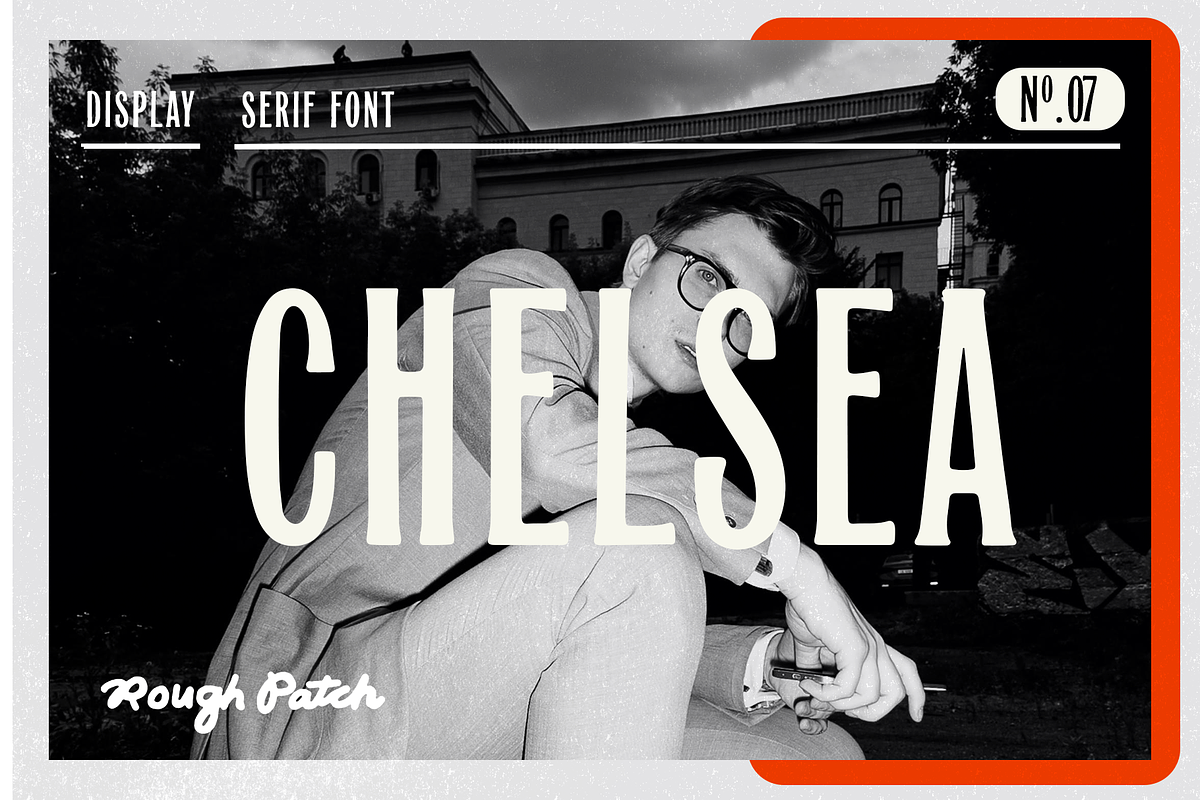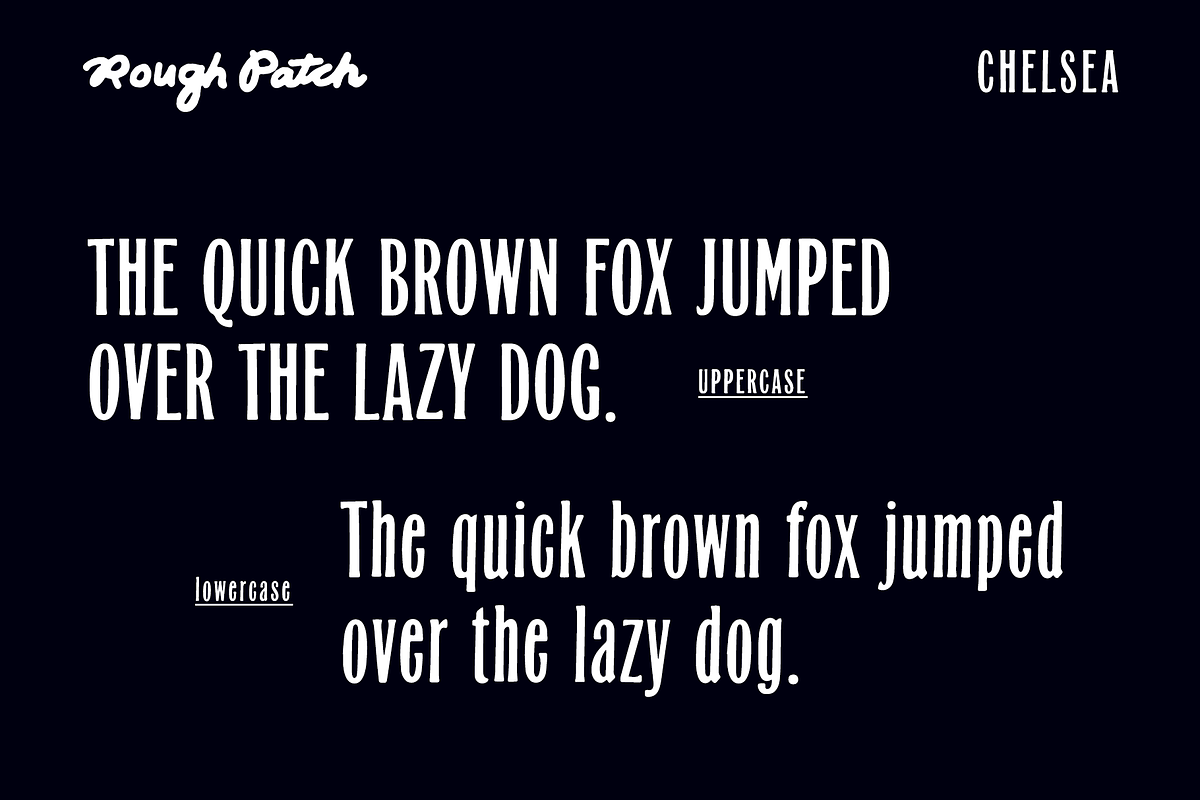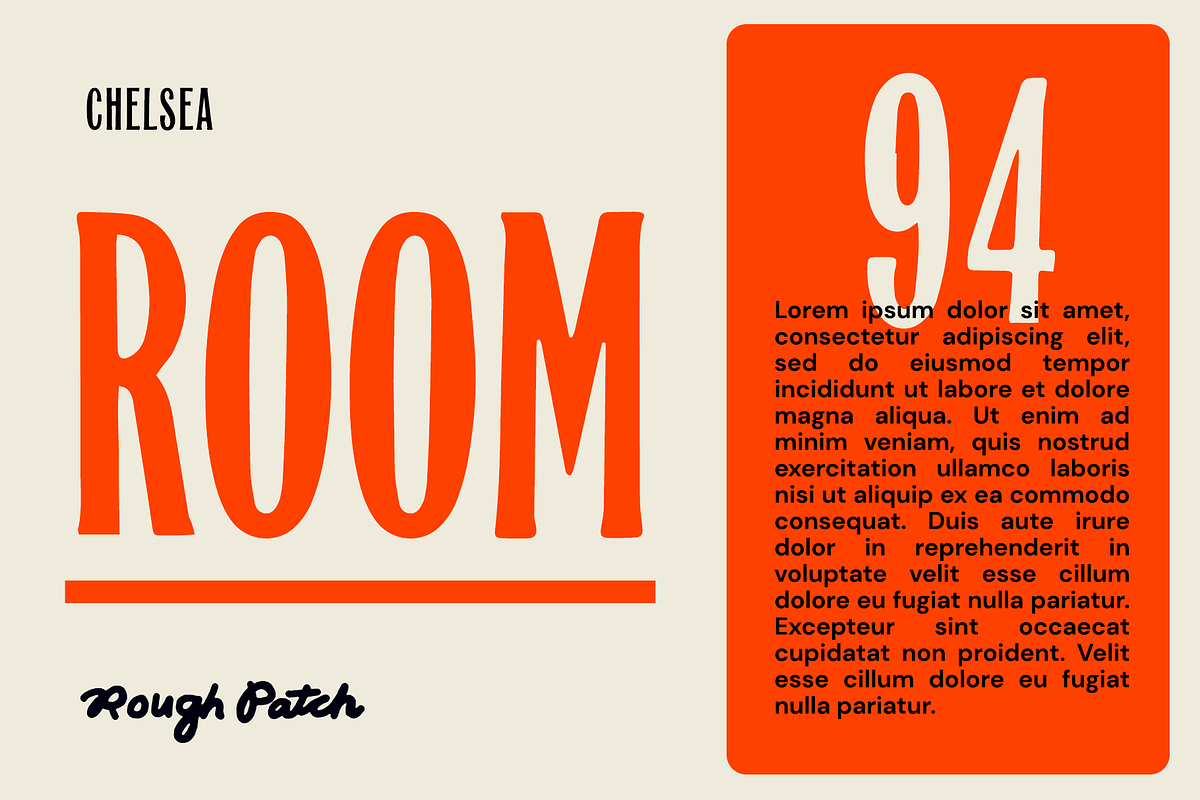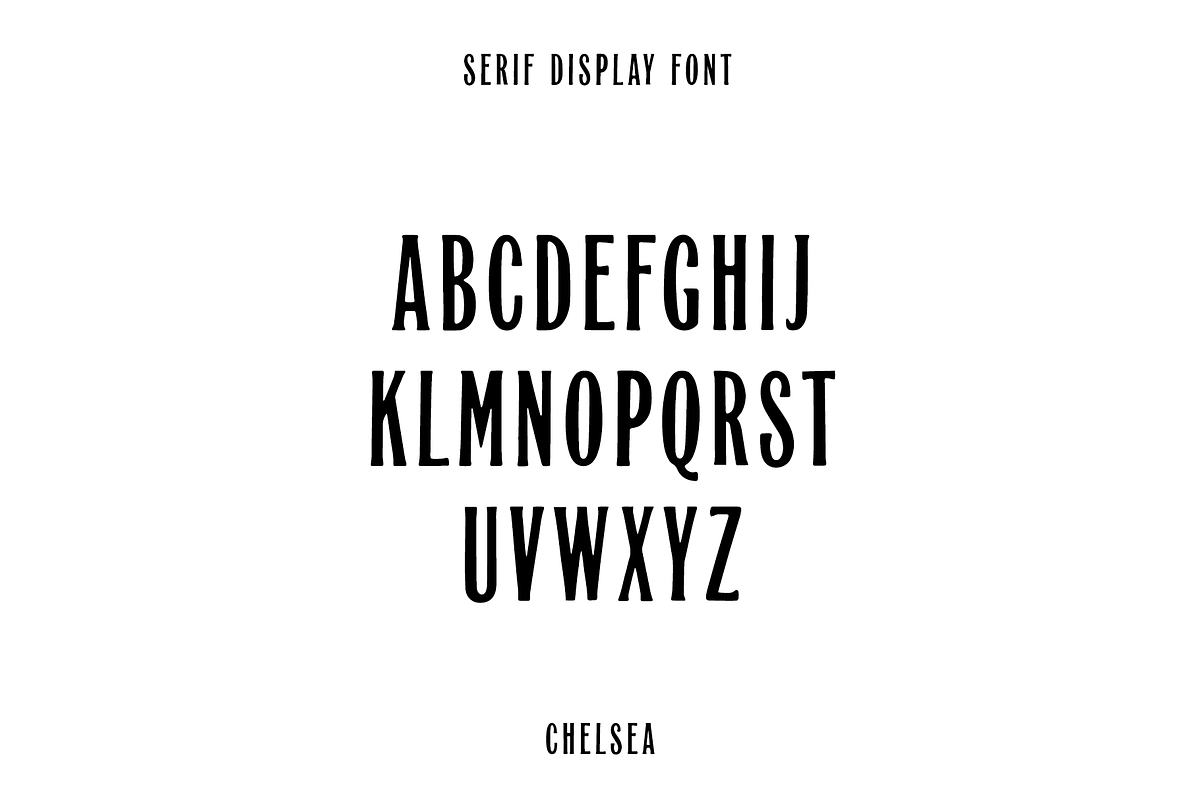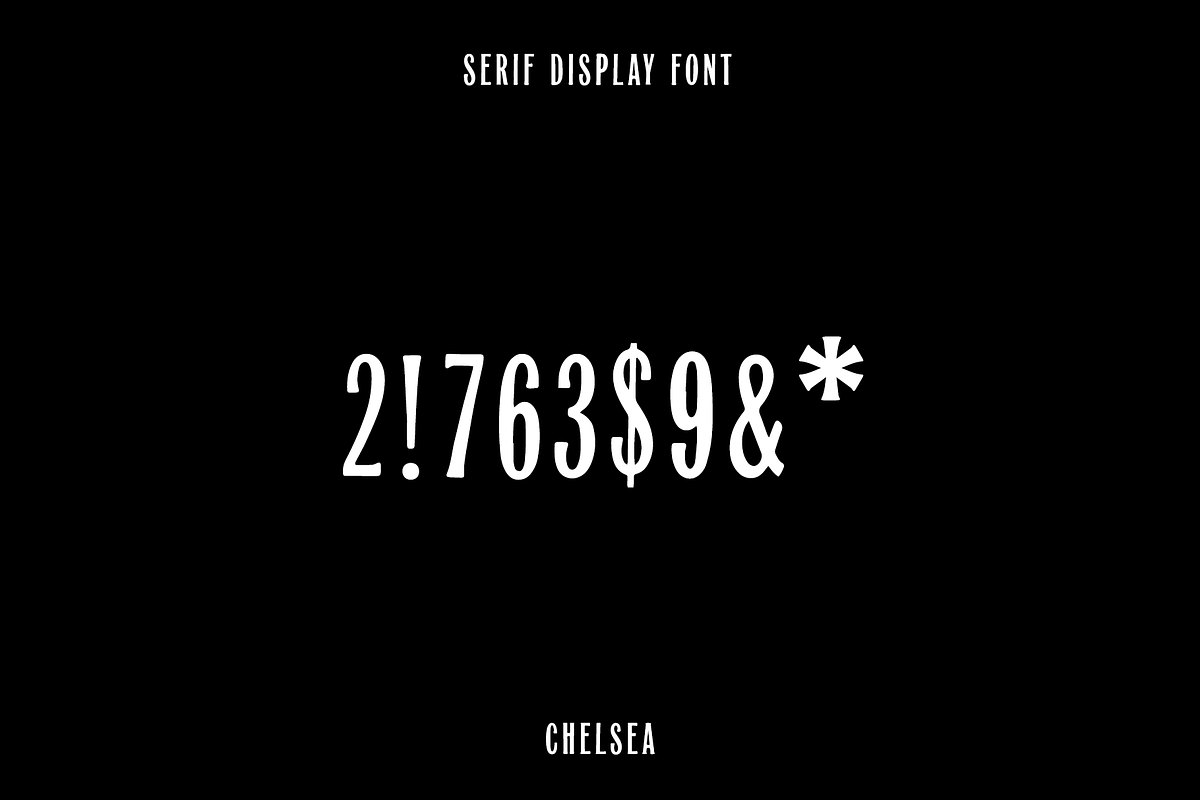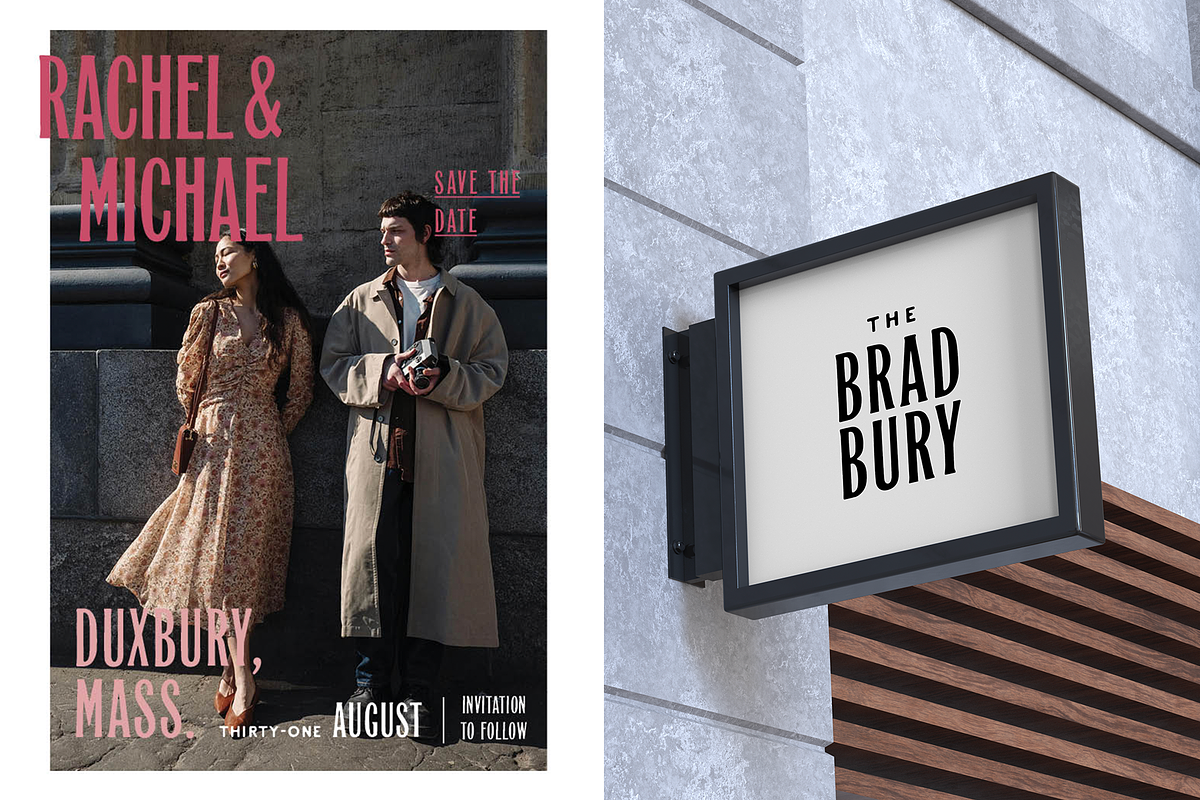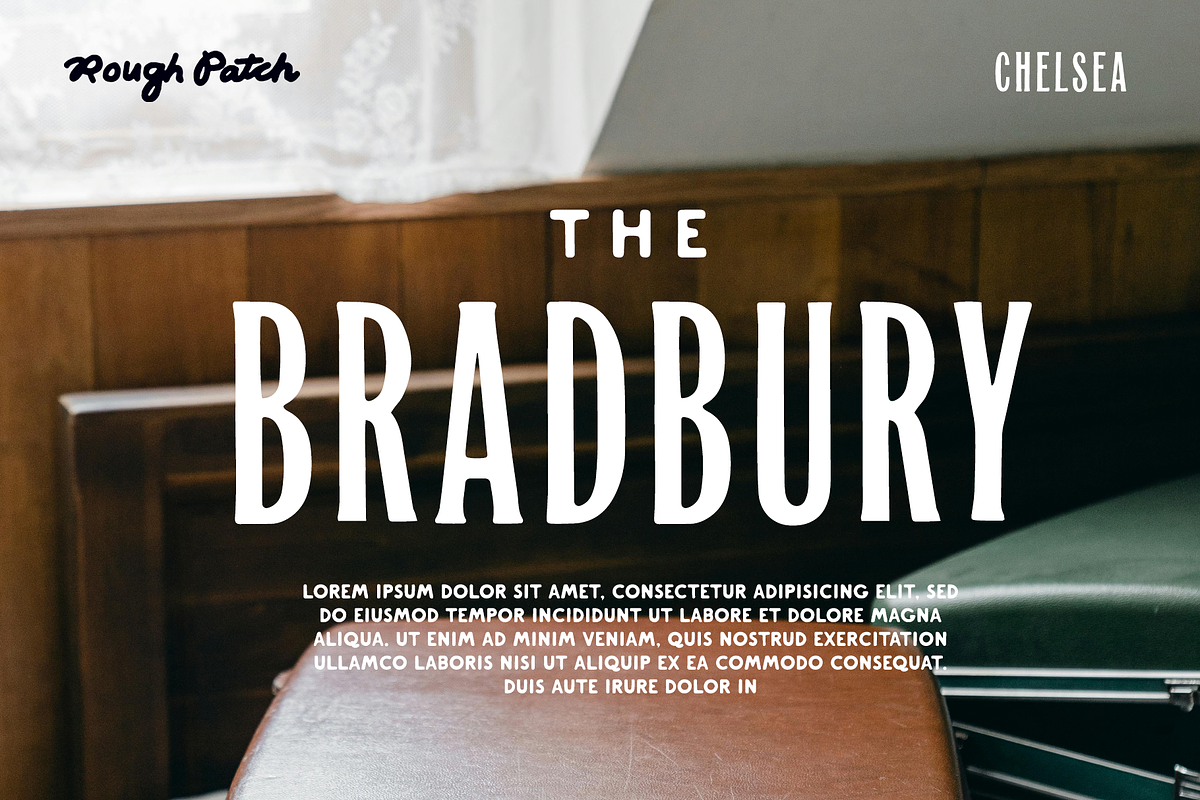
Chelsea | Vintage Serif Font
Chelsea A serif font with vintage inspiration and a slight east coast snob persona. Includes A-Z, upper and lowercase, numbers, & primary symbols. Great for logos, signs, titles, packaging, and whatever other dreams you have.
Designed and kerned with care.